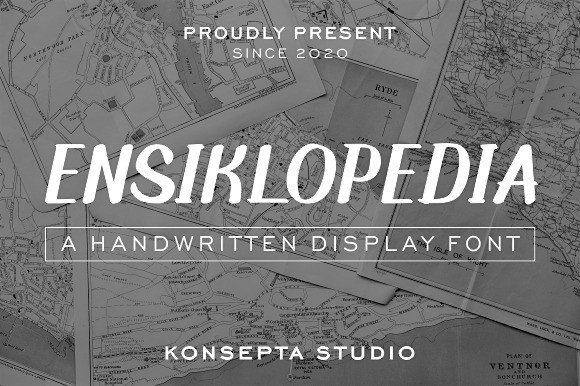
Ensiklopedia Display Font
Ensiklopedia is a friendly display font. Its casual charm makes it appear wonderfully down-to-earth, readable and, ultimately, incredibly versatile.
Ensiklopedia will look outstanding in any context, whether it’s being used on busy backgrounds or as a standalone headline!